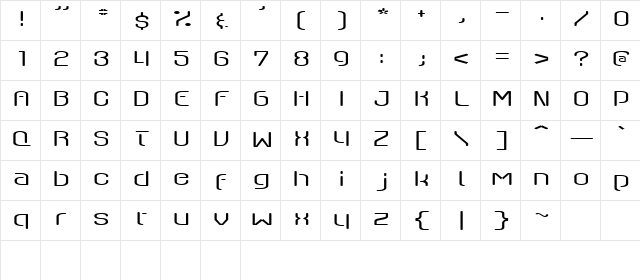
Axaxax Light
Design Context for Axaxax Typeface
Axaxax is a composed and adaptable typeface that performs quietly and consistently across a wide range of design contexts. Its slender proportions lend an understated elegance to any composition.